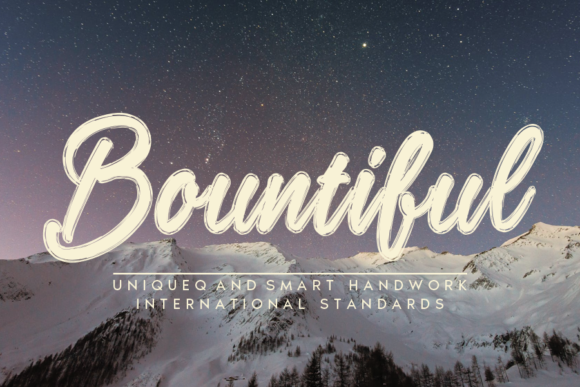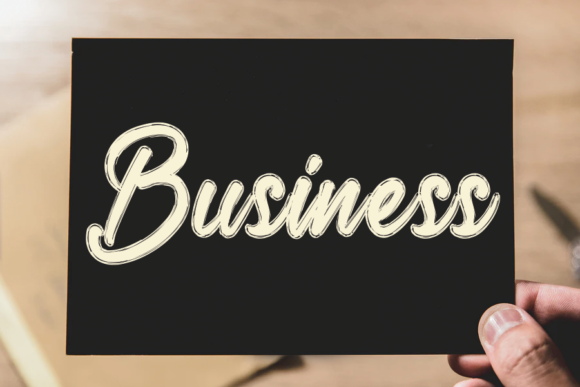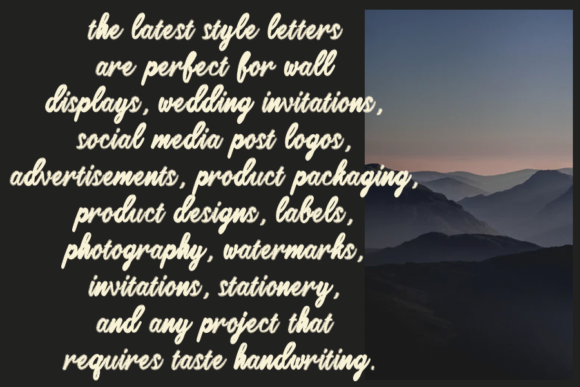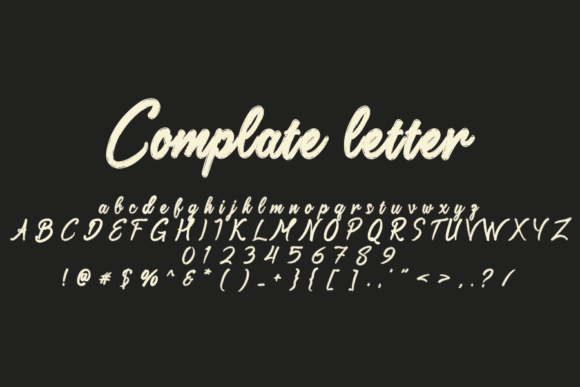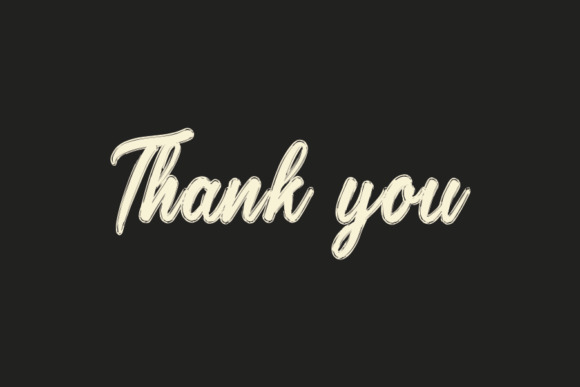
Bountiful Font
About Bountiful Font
Bountiful sounds like a fantastic handwritten font with a classic yet unique style that can elevate any design project. Its versatility makes it suitable for various applications, from headlines to blocks of text. Here are some specific ways you can leverage Bountiful’s characteristics in your design work:
1. Headlines and Titles: Use Bountiful to create eye-catching headlines and titles for websites, magazines, posters, and other print or digital media. Its unique style will draw attention and make the text stand out.
2. Logo Design: Incorporate Bountiful in logo designs to add a touch of elegance and personality to the brand identity.
3. Web Design: Utilize Bountiful in web design to create stylish and engaging typography that enhances the overall user experience.
4. Editorial Design: Apply Bountiful in editorial layouts for magazines, brochures, and newsletters to add a classic and sophisticated touch to the content.
5. Branding: Use Bountiful in branding materials, such as business cards and packaging, to maintain a consistent and unique visual identity for the brand.
6. Quotes and Inspirational Messages: Design beautiful quote graphics using Bountiful’s elegant lettering to share inspiring messages on social media or in printed materials.
7. Product Packaging: Apply Bountiful to product packaging to create a refined and stylish presentation for various goods.
8. Invitations and Announcements: Create elegant and memorable invitations and announcements using Bountiful’s captivating typography.
9. Blog Post Headings: Use Bountiful in blog post headings to add a touch of sophistication and elegance to your written content.
10. Social Media Graphics: Apply Bountiful to social media graphics and posts to enhance the visual appeal of your content on platforms like Instagram, Pinterest, and Facebook.
11. Book Covers: Use Bountiful in book cover designs to create a visually striking and captivating cover for novels, poetry books, and other literary works.
12. Stationery: Incorporate Bountiful in personalized stationery, such as notepads, letterheads, and thank-you cards, to add a touch of elegance to your written correspondence.
13. Event Signage: Use Bountiful in event signage, such as banners and posters, to create a sophisticated and attention-grabbing display.
14. Brand Presentations: Apply Bountiful in brand presentations and pitch decks to create a professional and stylish look for business proposals.
15. Moving Images: Utilize Bountiful in video or animation projects to add elegant and visually appealing text overlays.
16. Calligraphic Artwork: Create calligraphic artwork using Bountiful’s unique and elegant style, making it suitable for framing and displaying as decorative pieces.
17. Packaging Design: Apply Bountiful in packaging design for luxury and high-end products to create a sense of refinement and sophistication.
18. Wedding Stationery: Use Bountiful in wedding invitations, save-the-date cards, and other wedding stationery to add a touch of elegance and romance.
19. Quotes for Home Decor: Design art prints with Bountiful’s beautiful lettering to display inspirational quotes and messages as home decor pieces.
20. Fashion Branding: Incorporate Bountiful in fashion branding materials, such as lookbooks and promotional materials, to add a touch of style and elegance to the brand image.
Overall, Bountiful’s blend of classic typography and unique style makes it a versatile and captivating font for a wide range of design projects. Its ability to look spectacular in various applications, whether for print or digital media, ensures it will be a valuable asset for any designer seeking elegant and sophisticated lettering.